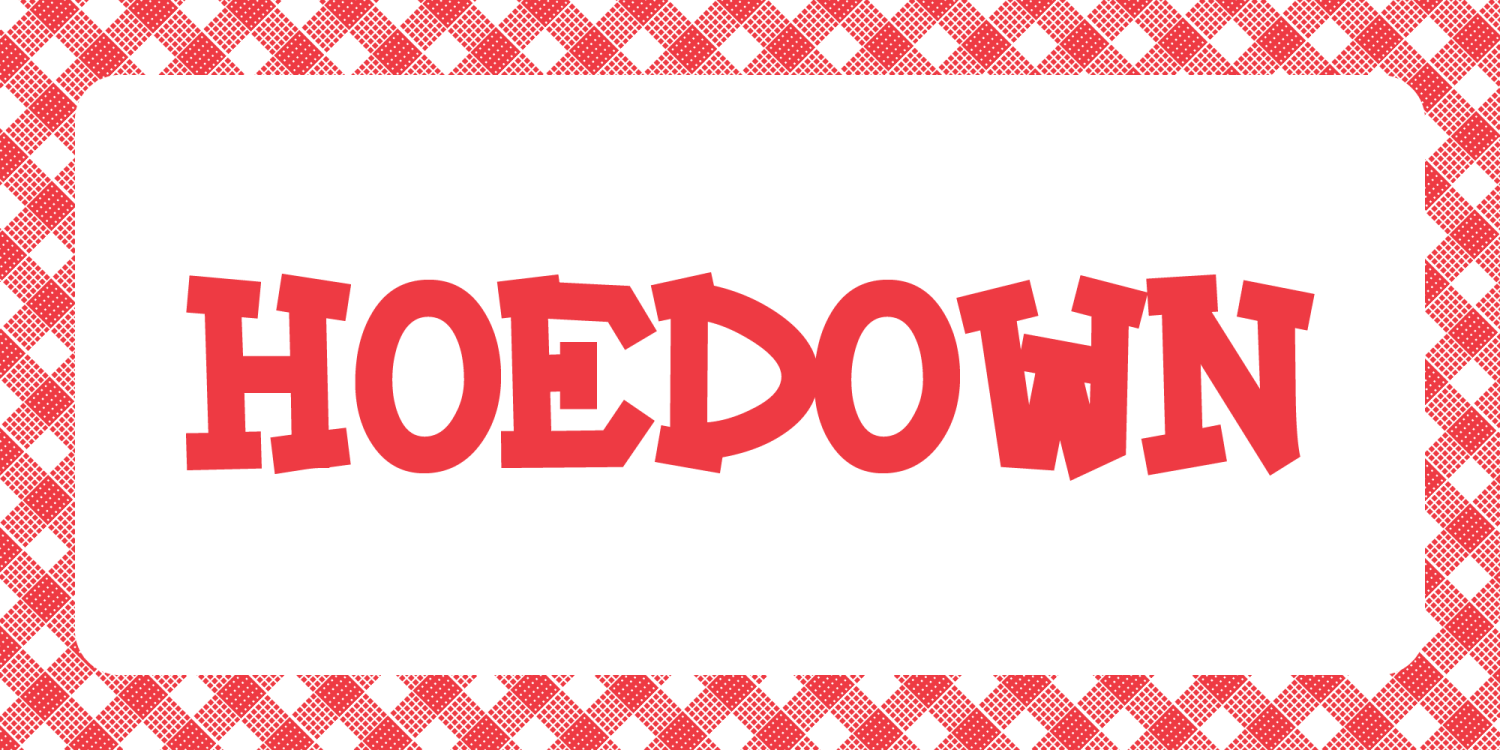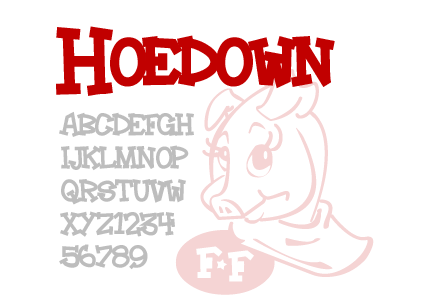
I was going through a bunch of old fontographer files and I found this little set I created last year. So all the farmers out there saying to theirselves, "Does this kid make fonts for us hard working aggies?" Yes, of course I do. I make fonts for everybody. Here's yours.